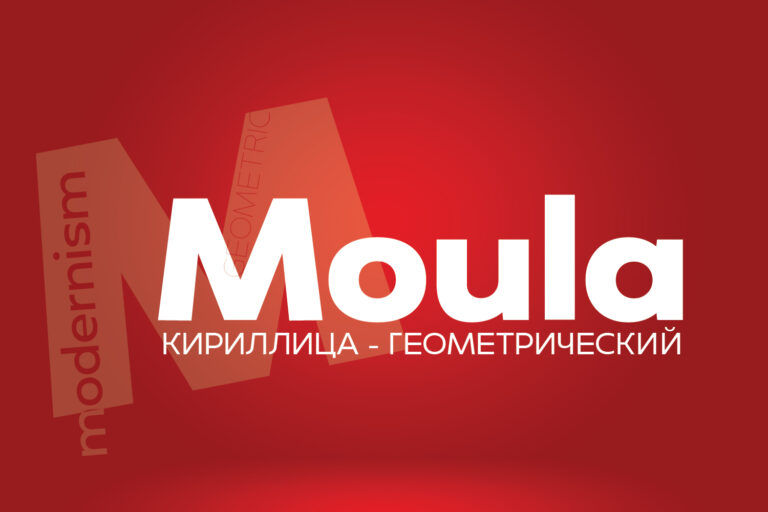
Moula is a modern sans serif with a geometric touch. Containing of 18 font, 9 uprights and its matching italics.
It’s shown a clean, minimalist, elegant, warmth, quirky, yet still purposed to be versatile and easy to read. Fit for various design or creative project.
Support extended language (+ Cyrillic), fractions, tabular figures, ligatures and more. Perfectly suited for graphic design and any display use. It could easily work for web, signage, corporate as well as for editorial design.